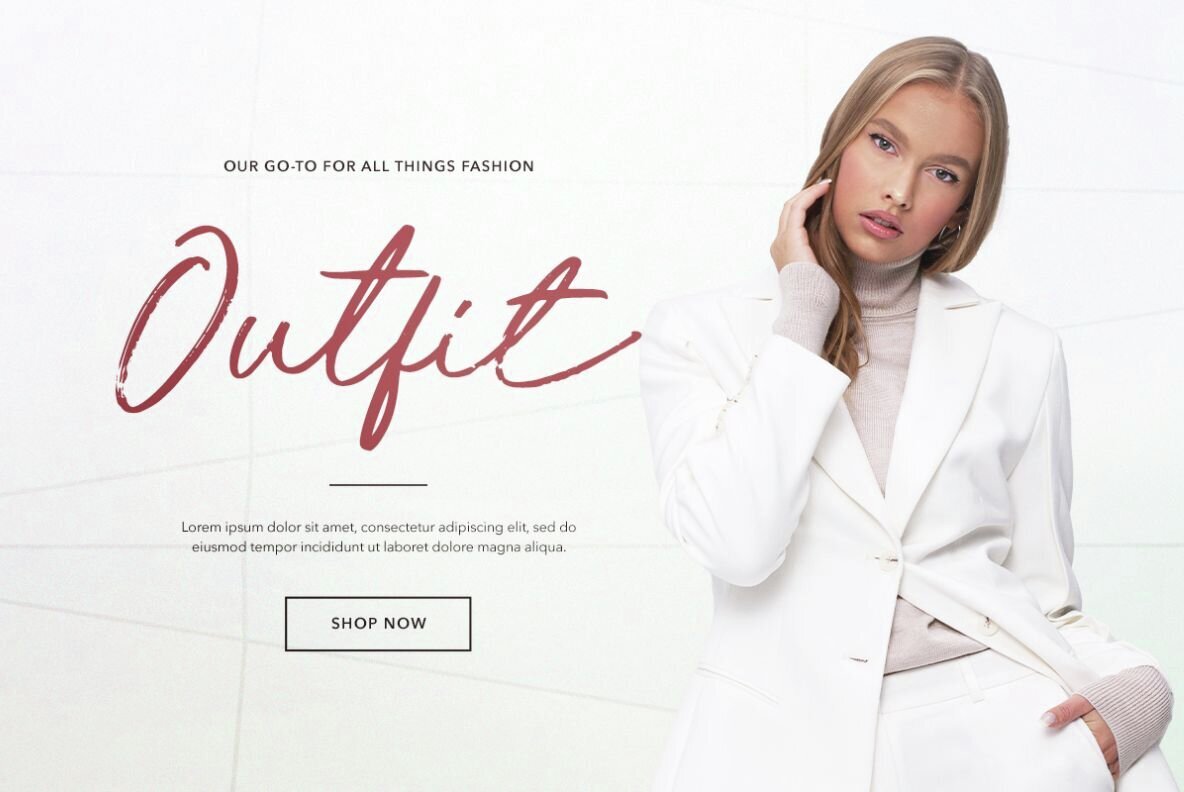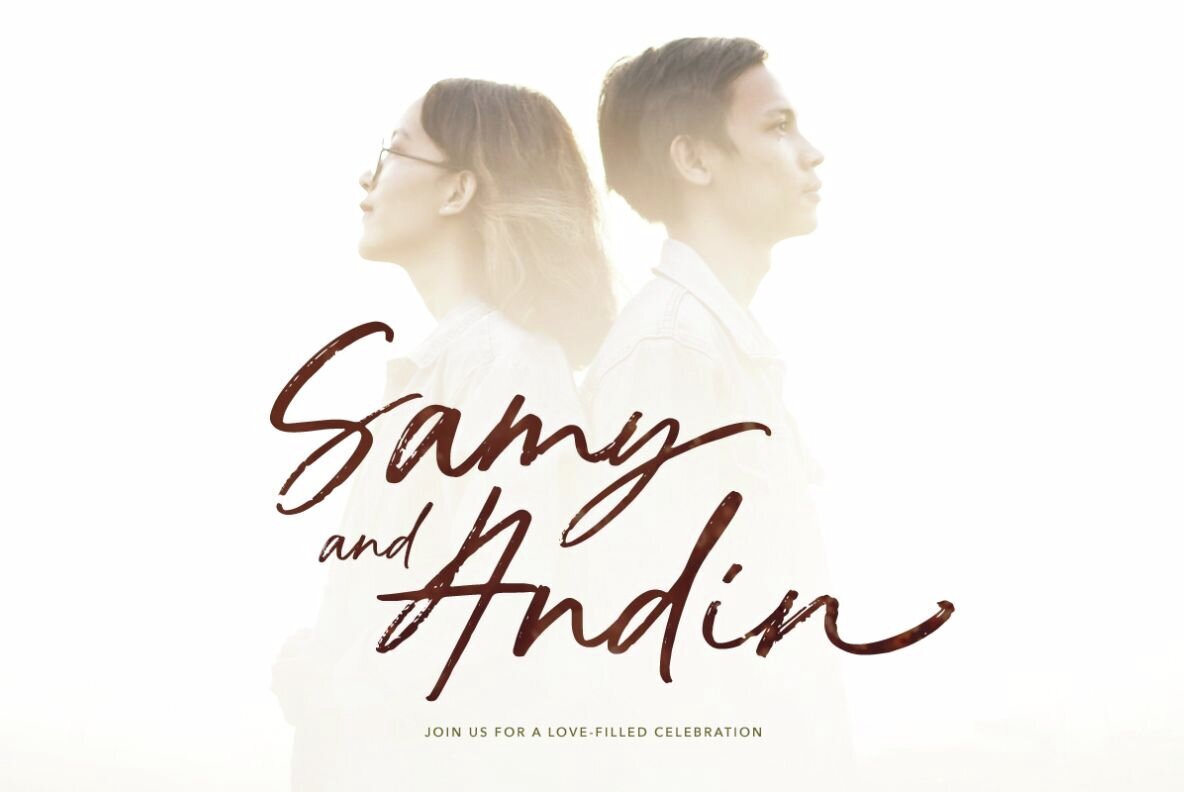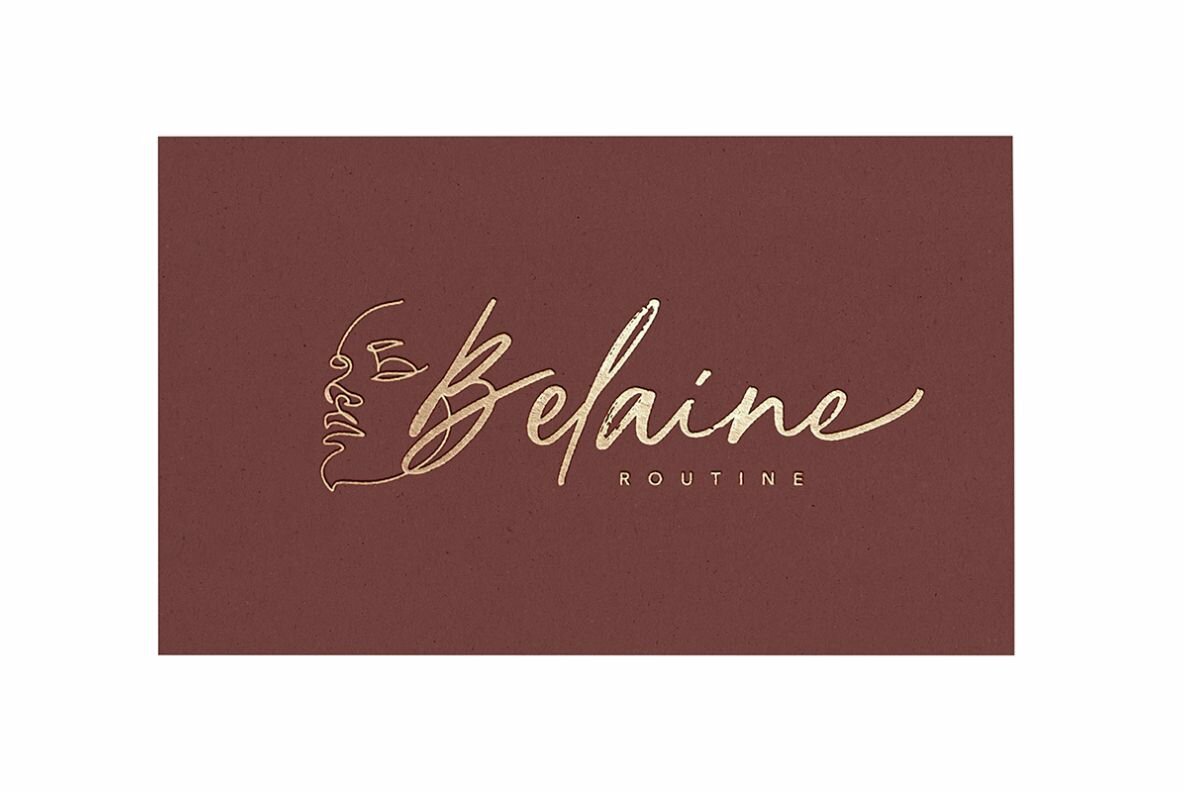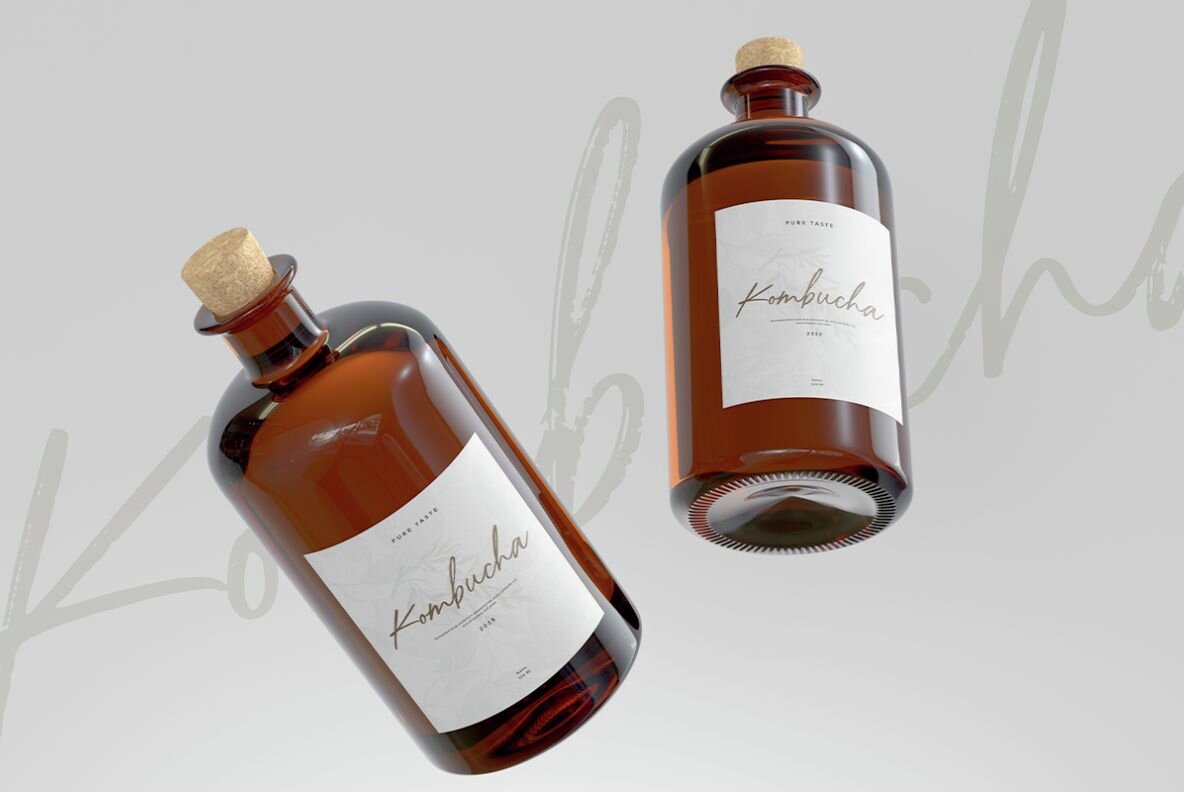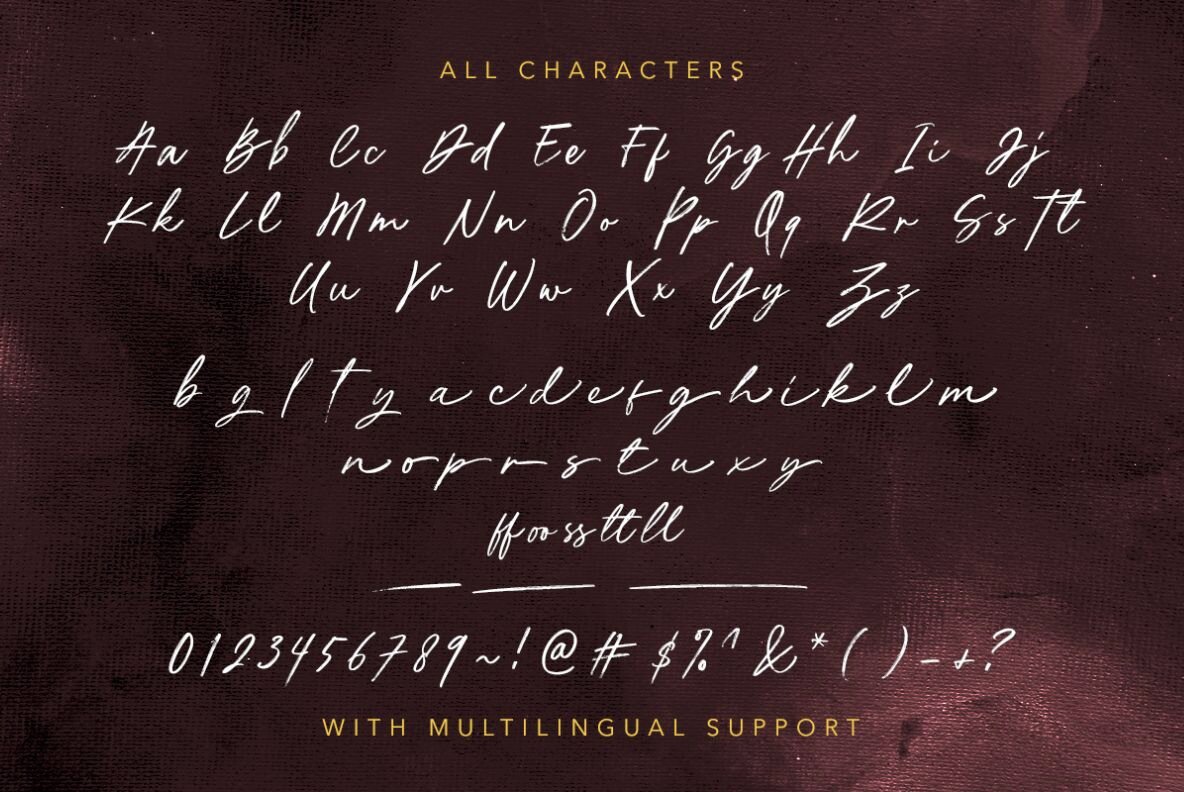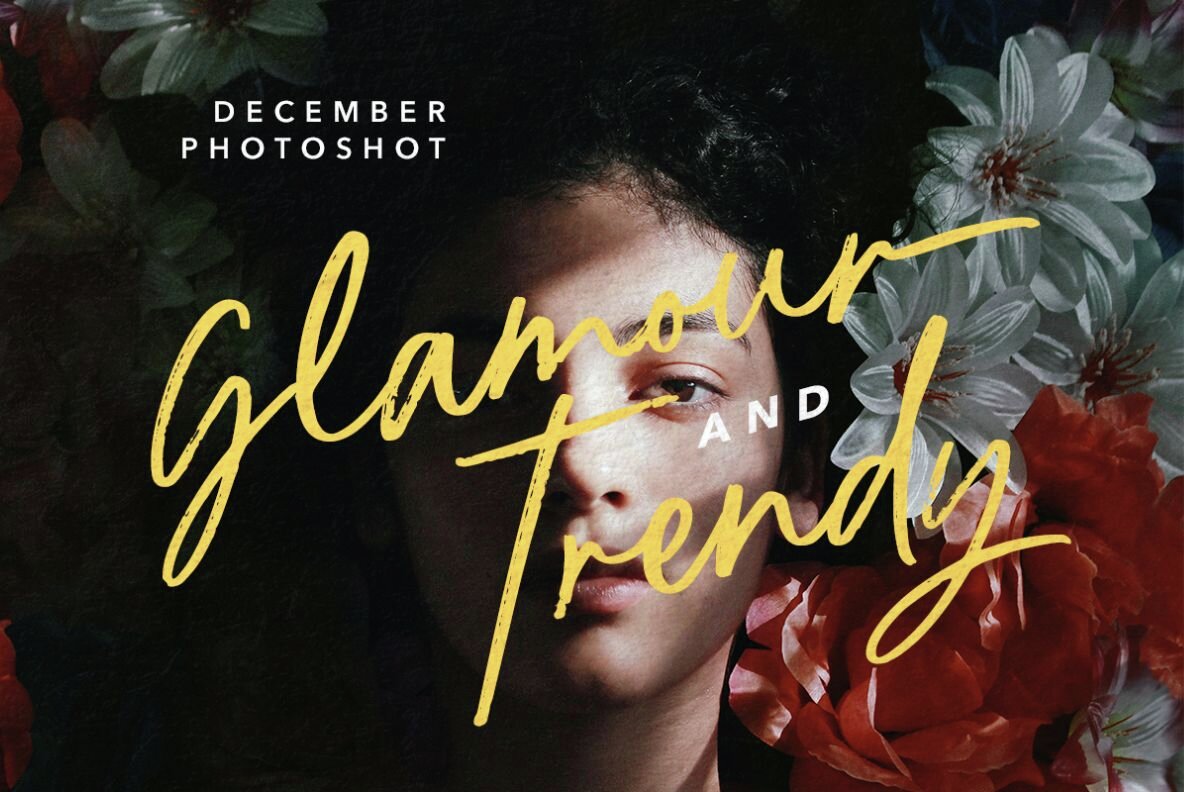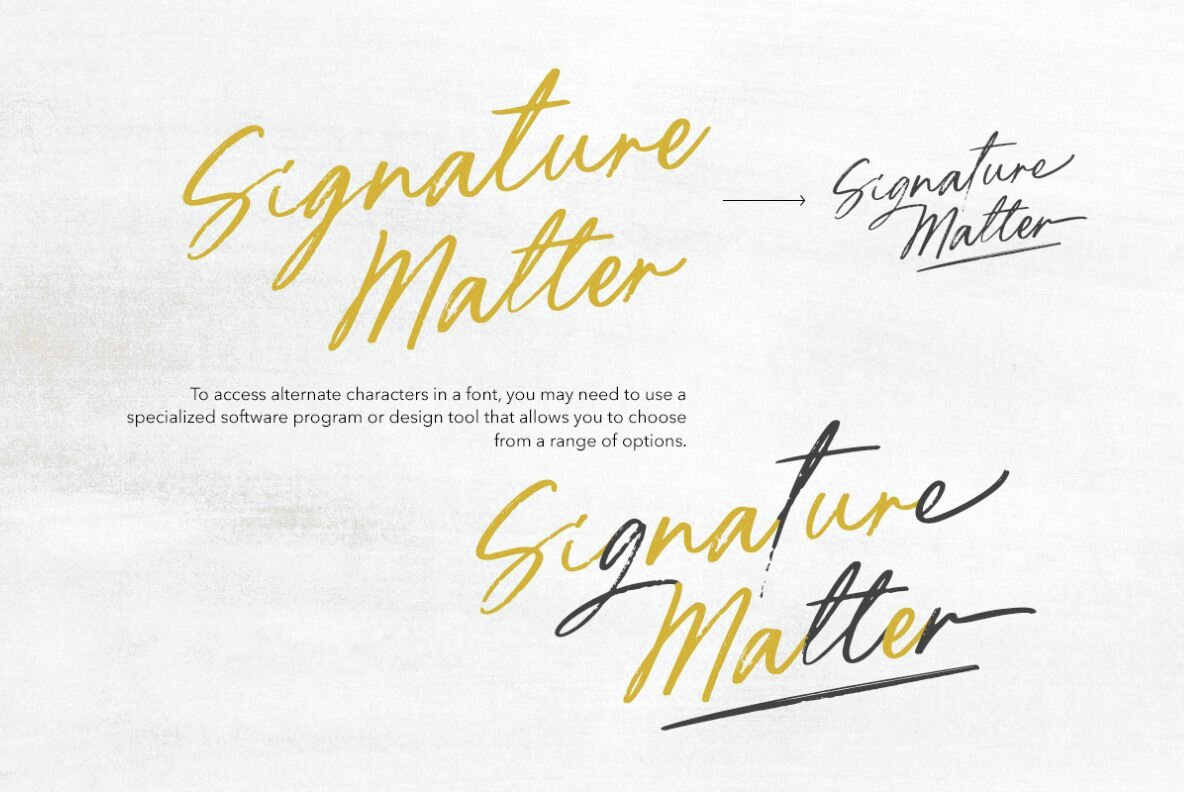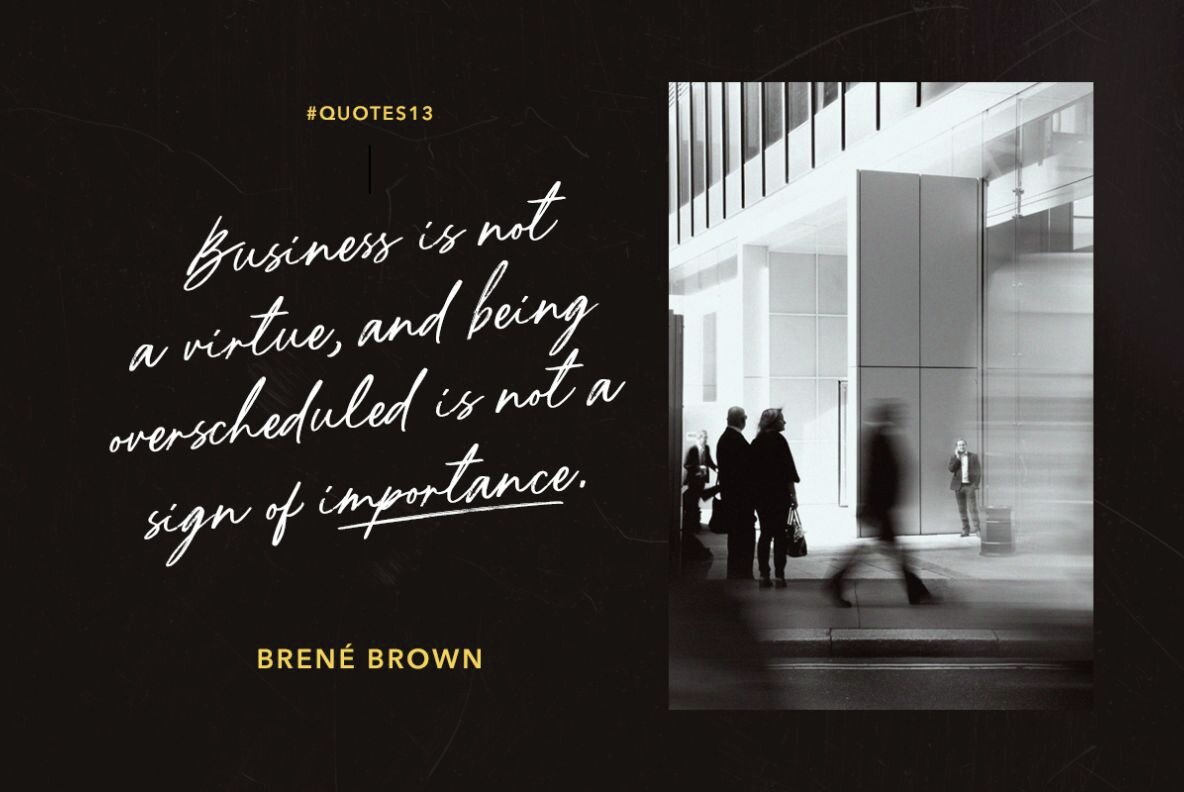
Ardelion Font
Ardelion Regular
Ardelion is a stylish signature script font designed for versatility and elegance. With its textured brush strokes, this font comes equipped with stylistic alternates, underlines, and ligatures, allowing you to craft unique signatures or custom logo designs. Its distinct character makes it exceptionally suited for creating logos that resonate with your branding vision.
Ideal for a wide range of applications, Ardelion shines in the realms of fashion, wedding invitations, and handwritten quotes. Whether you are designing a sophisticated fashion line or crafting an intimate wedding invitation, this font brings a touch of personal flair to any project.